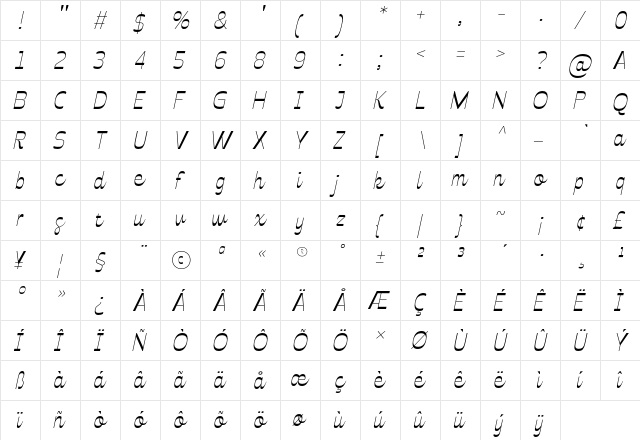
Celestine LightItalic Font Preview
| Foundry | Anugrah Pasau |
| Designer | Anugrah Pasau |
Design Context for Celestine Typeface
Celestine takes a measured approach to typography — its balanced proportions and neutral character make it a reliable workhorse for both digital and print work. Its italic angle brings a sense of urgency and motion to the letterforms. The delicate stroke weight brings airiness and refinement to layouts.